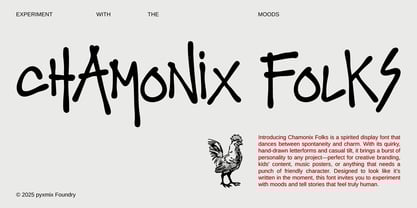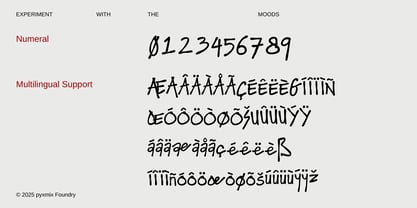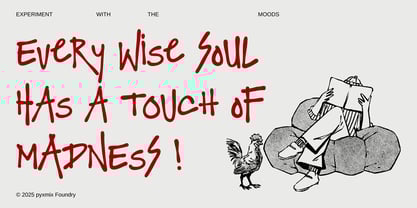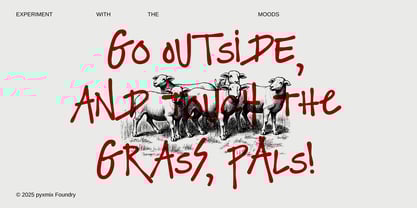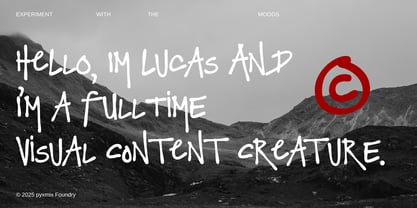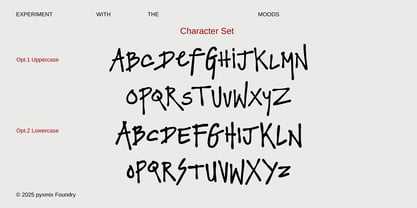
Chamonix Folks
by Pyxmix
The Chamonix Folks Font Family was designed by Ikhsal Salman and published by Pyxmix. Chamonix Folks contains 1 styles. More about this family
Introducing Chamonix Folks is a spirited display font that dances between spontaneity and charm. With its quirky, hand-drawn letterforms and casual tilt, it brings a burst of personality to any project—perfect for creative branding, kids' content, music posters, or anything that needs a punch of friendly character. Designed to look like it’s written in the moment, this font invites you to experiment with moods and tell stories that feel truly human.
Designers: Ikhsal Salman
Foundry: Pyxmix